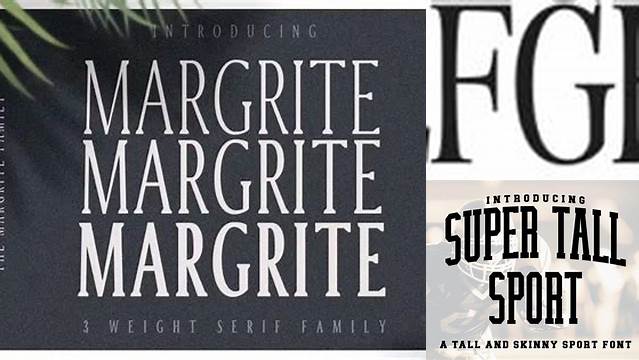
Awesome Serif Tall Fonts: Free Download Guide
Hey guys! Ever found yourself scrolling endlessly for that perfect font that brings an air of sophistication and height to your designs? You know, the kind of typeface that just screams elegance and makes your text stand out with its vertical flair? Well, you’re in the right place! Today, we're diving deep into the world of awesome serif tall fonts, and guess what? We’re focusing on the ones you can snag for free! That's right, ditch the budget worries and get ready to elevate your typography game with some seriously stylish and tall serif options. Whether you're crafting a brand identity, designing a captivating poster, or laying out a beautiful book, the right font can make all the difference. And when you can get that premium look without spending a dime, it's a total win-win!
We'll explore what makes these fonts so special, where to find them, and how to best utilize their unique characteristics. So, buckle up, grab your favorite beverage, and let's find some typographic gems that will make your next project truly shine.
Why Choose Tall Serif Fonts for Your Designs?
Alright, let's chat about why you might want to specifically seek out these awesome serif tall fonts. Think about it – what’s the first impression a tall font gives off? Usually, it's one of elegance, authority, and a certain classic charm. Serif fonts, with their little feet (those are the serifs, by the way!), inherently bring a sense of tradition, readability, and a refined feel. When you combine that with the added height, you’re essentially amplifying those qualities. These fonts tend to draw the eye upwards, creating a strong vertical flow that can guide readers through your text. They possess a certain gravitas, making them ideal for projects where you want to convey a sense of importance or timelessness. Imagine a wedding invitation with a beautifully spaced, tall serif font – it just feels instantly more formal and special, right? Or a book cover for a historical novel; that vertical emphasis adds to the narrative's weight. Even for digital use, like headings on a blog or important call-to-action buttons, a tall serif can provide that extra bit of visual punch without being overwhelming. They often have a sophisticated personality, hinting at literary heritage or established brands. The extended height can also be fantastic for creating striking visual hierarchy, setting important titles apart from the body text with effortless style. It’s not just about being tall; it's about how that verticality interacts with the inherent character of the serifs to create a distinct and memorable typographic statement that’s both classic and contemporary. It’s that unique blend of old-school grace and modern impact that makes these fonts so incredibly versatile and desirable for designers looking to add that extra touch of wow factor to their creations.